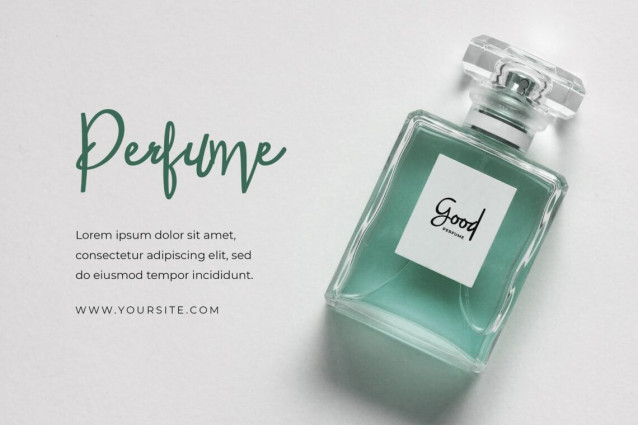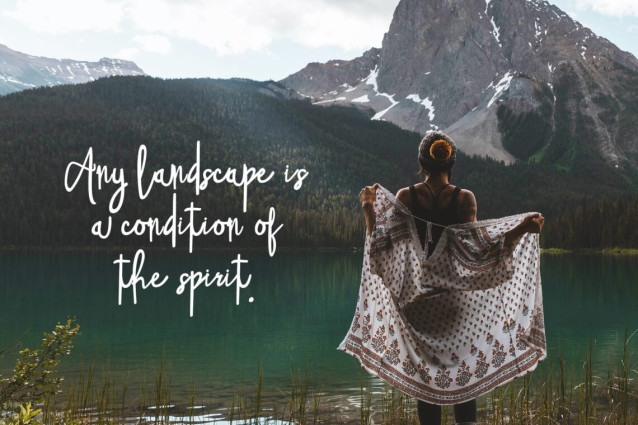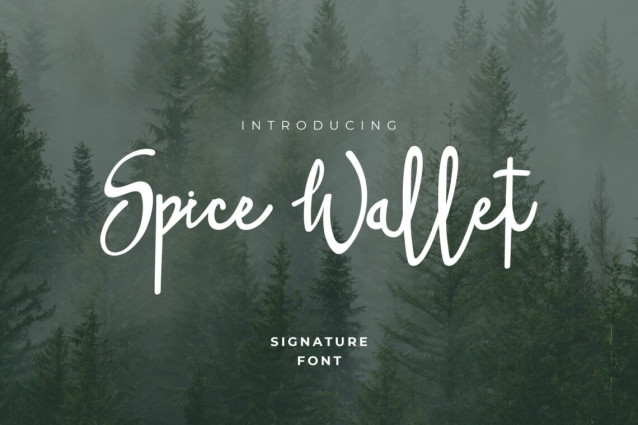
Spice Wallet Handwritten Style Font
Spice Wallet Handwritten Style. The modern display font feels beautiful classy, elegant, and stylish. This font is ideally suited for a wide variety of projects, such as signature, stationery, logo, wedding, typography quotes, magazine or book covers, website headers, branding, and more. Also, fashion-related branding or editorial design displays both masculine and feminine qualities.